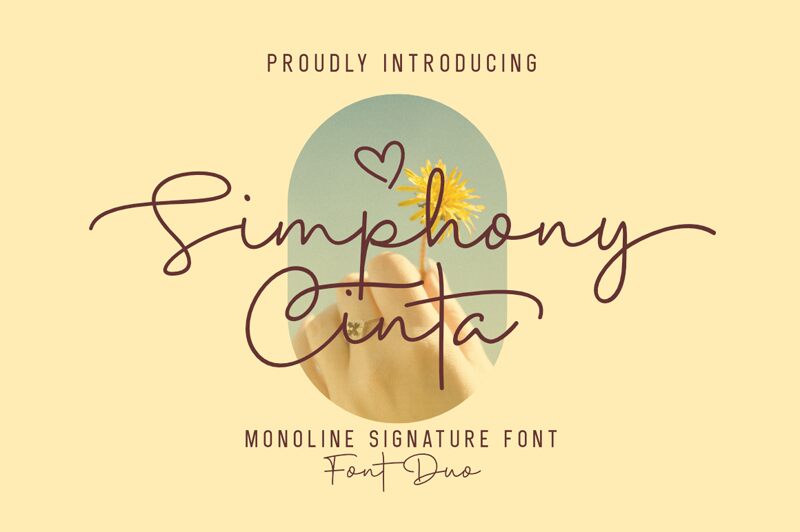
Simphony Cinta, a handwritten font crafted by Silverdav Studio, exudes a captivating charm with its light, graceful strokes. This expressive typeface effortlessly blends elegance and fluidity, creating a timeless aesthetic that evokes a sense of warmth and authenticity. The organic flow of its letterforms and the subtle variations in width and pressure lend an air of artisanal allure, making Simphony Cinta a delightful choice for projects seeking a personal, handcrafted touch.
Simphony Cinta's versatility shines through its ability to seamlessly adapt to a wide range of applications, from invitations and stationery to branding and packaging. Its versatile nature allows designers to incorporate this font into various projects, whether crafting personalized messages, designing eye-catching logos, or enhancing the overall visual appeal of their creations.
Simphony Cinta
Andi Kaisar Dwiriyangga